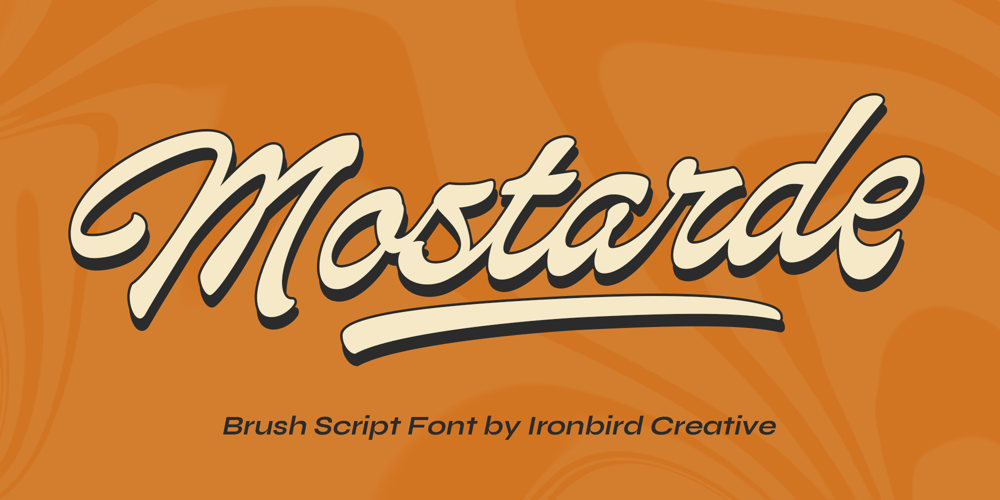
Mostarde
Mostarde font
Mostarde Font Family was designed by Bagas Ferdiansah, Septianto Nugroho and published by Ironbird Creative. Mostarde contains 1 styles and family package options. Mostarde, Amazing hand lettering look bold script typeface with attractive swashes and alternates! This font perfectly made to be applied especially in logo, and the other various formal forms such as invitations, labels, logos, magazines, books, greeting / wedding cards, packaging, fashion, make up, stationery, novels, labels or any type of advertising purpose.